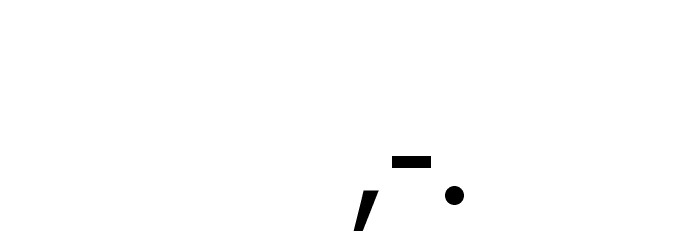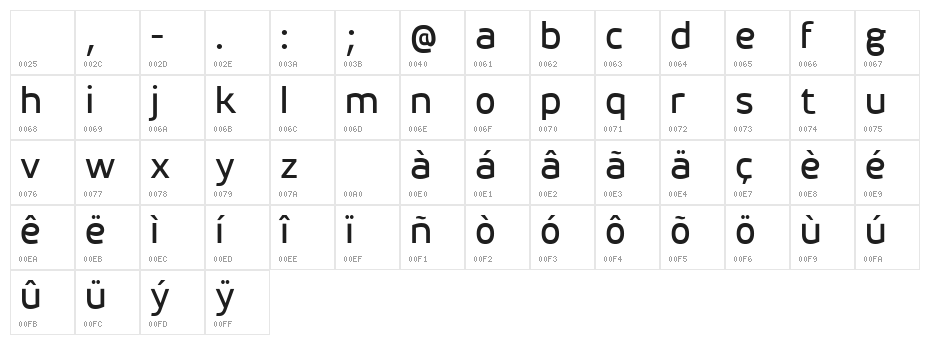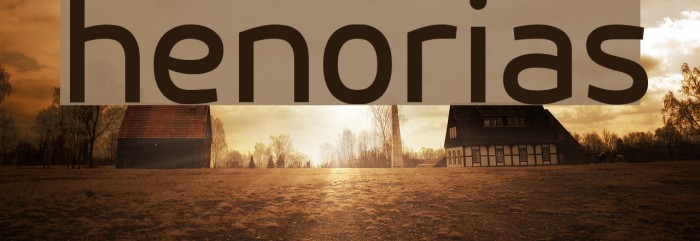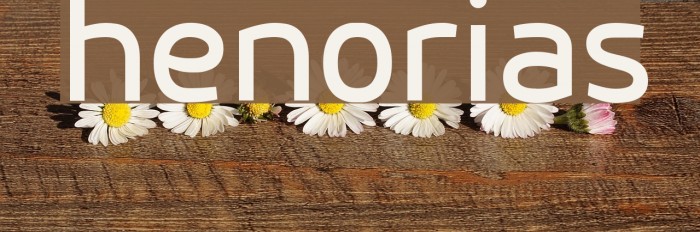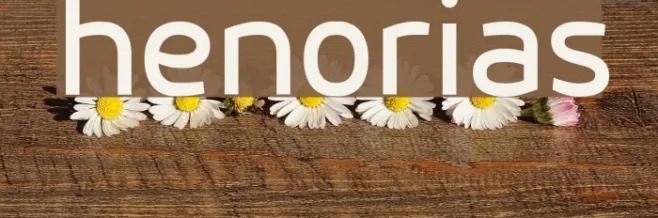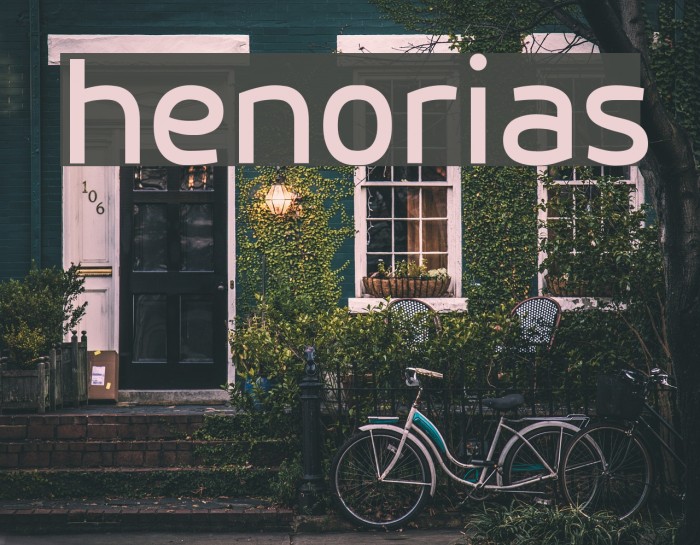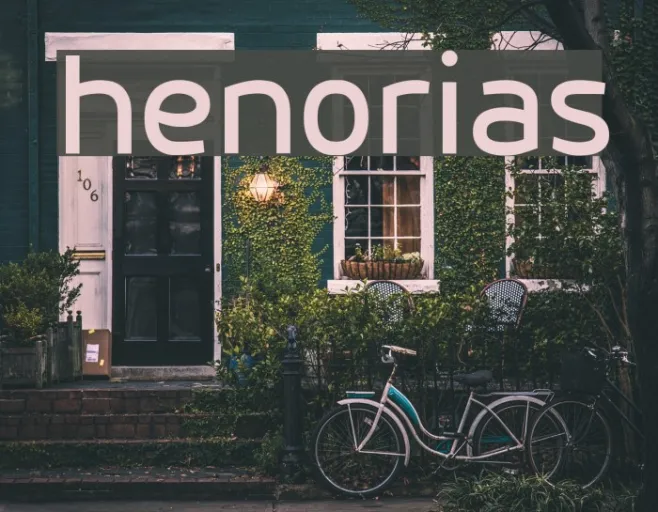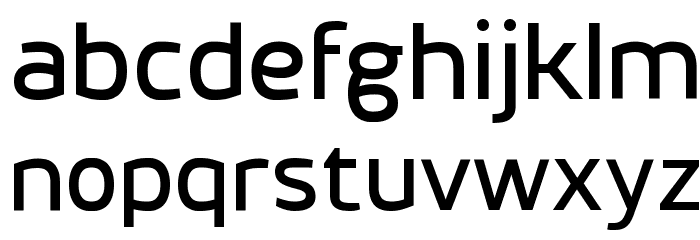
henorias Font
henorias Description
This font presents a modern and sleek design with a clean and minimalistic appearance. The characters are well-balanced with a uniform stroke width, contributing to a harmonious and readable text. The rounded edges and smooth curves give it a friendly and approachable feel, while maintaining a professional look. The lowercase letters are slightly wider, enhancing readability, and the spacing between characters is consistent, providing a neat and organized appearance. This font is versatile, suitable for both digital and print media, and can be used effectively in various design contexts.